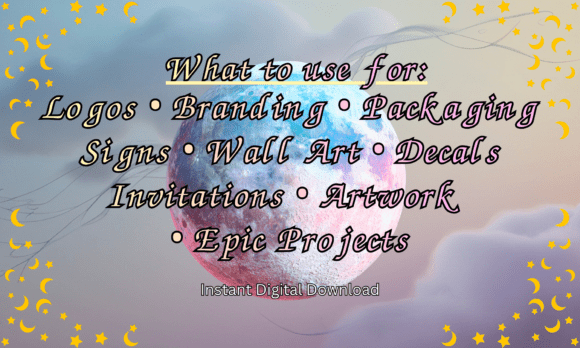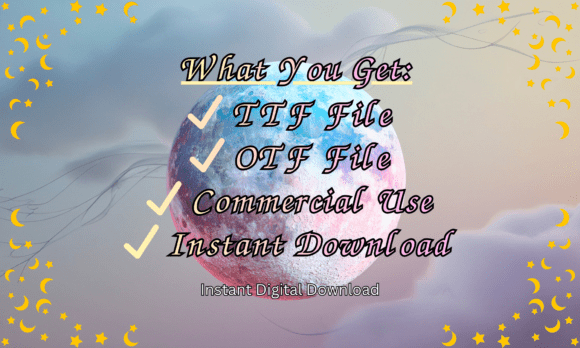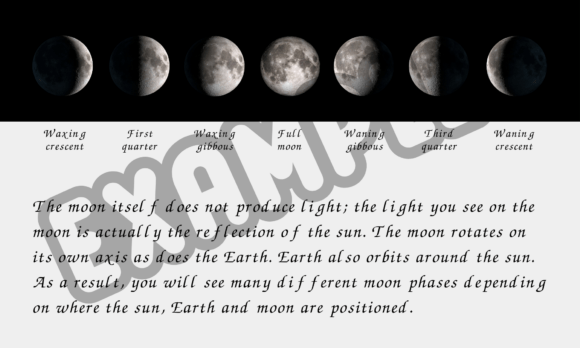
Introduction to Moonveil Script Font
As a designer, you’ve probably experienced that moment when you’re working on a creative project and you just can’t seem to find the right font to capture the essence of your vision. The words are there, but they’re missing that special something that would make them truly shine. For many of us, this is where the magic of Moonveil Script Font comes in – a high-quality, free download that offers a truly otherworldly feel.
With its elegant, calligraphic silhouettes and striking high-contrast outline, Moonveil Script Font is the perfect design resource for anyone looking to add a touch of celestial wonder to their work. Whether you’re designing for a fantasy novel, an astrology-themed brand, or magical event stationery, this font provides an ethereal glow that makes your text feel truly legendary.
Key Features of Moonveil Script Font
- High-quality, elegant script font perfect for creative projects and design resources, ideal for adding a touch of sophistication.
- Unique characteristics include a flowing, cursive design and subtle flair, making it perfect for adding a personal touch to creative projects.
Honest Review: Moonveil Script Font
I recently stumbled upon the Moonveil Script Font, and I must say it’s a fantastic addition to my design resources. The Moonveil Script Font is a beautiful, elegant script font that’s perfect for any creative project that needs a touch of sophistication.
- What works well: ✨ The Moonveil Script Font has a unique, high-quality design that makes it stand out from other script fonts. It’s great for titles, headings, and any text that needs a bit of flair.
Overall, I’m really impressed with the Moonveil Script Font. It’s a high-quality design resource that’s perfect for any creative project. While it may have a few limitations, its unique design and free download make it a must-have for any designer.
Tips for Getting the Most Out of Moonveil Script Font
Common Use Cases for Moonveil Script Font
Moonveil Script Font is a versatile design resource that can be used in a variety of creative projects, including invitations, quotes, and social media graphics. It’s also a great choice for creating a high-quality logo or branding materials.